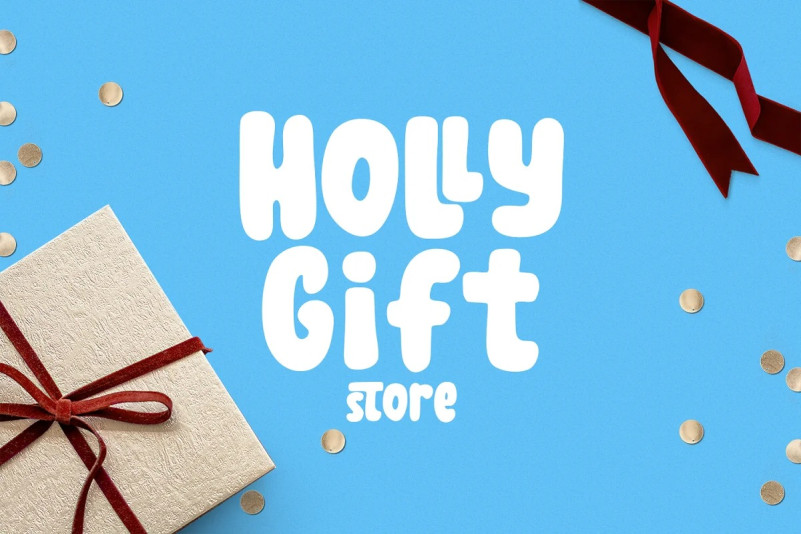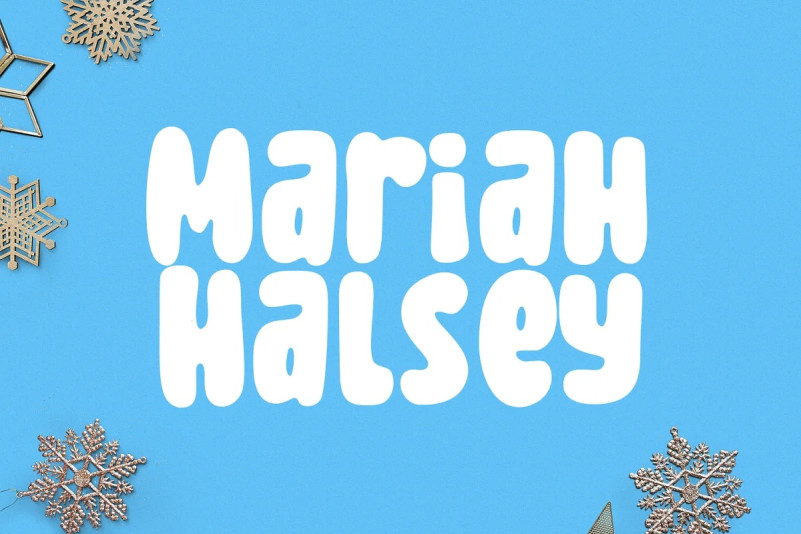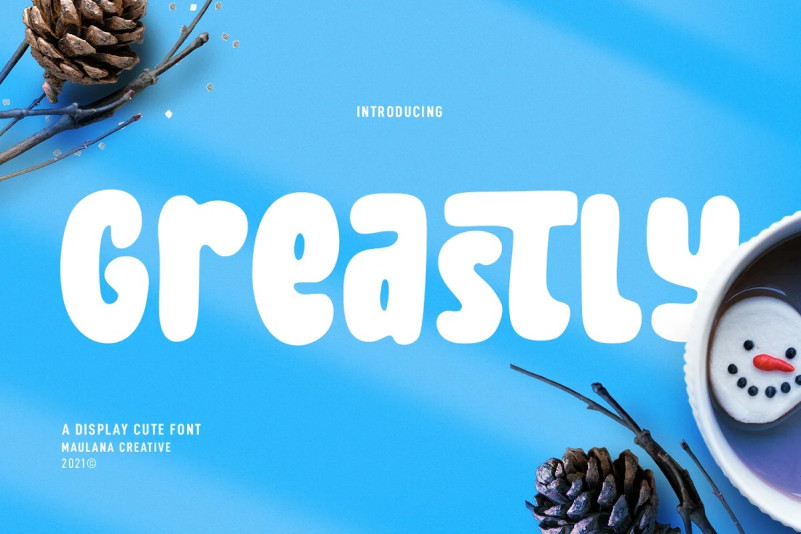
Greastly Font
Greastly Display Font is a cute handwritten display font. With bold stroke, fun character with a bit of ligatures and has a two files lowercase alternates. To give you an extra creative work. Greastly font support multilingual more than 100+ language. This font is good for logo design, Social media, Movie Titles, Books Titles, a short text even a long text letter and good for your secondary text font with sans or serif. Make a stunning work with Greastly font.